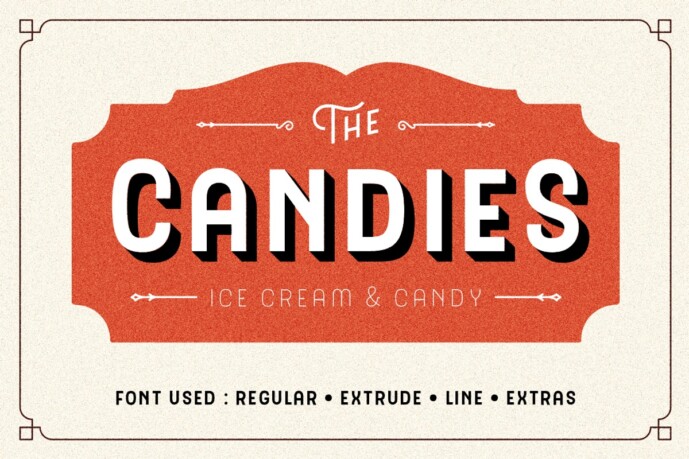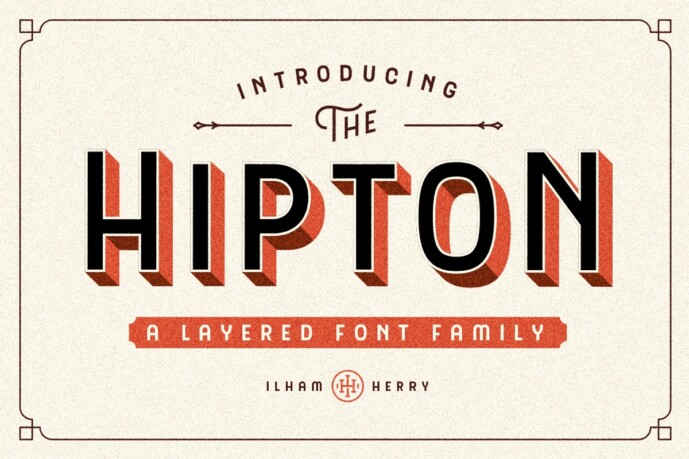
The Hipton Font
Designer: Ilham Herry
The Hipton Font, inspired from single stroke gothic letter of sign painting and make it layered. This is collection of type with a layered type system, many possibilities combination and options. As a display typeface Hipton is suitable for headlines, logotypes, signs, posters, greeting card, letterhead, t-shirt, and many more.